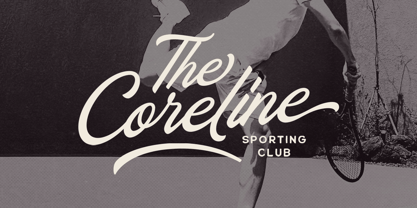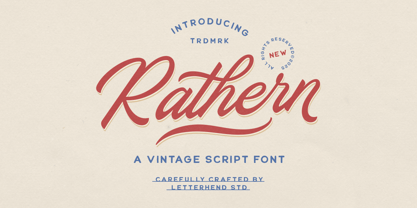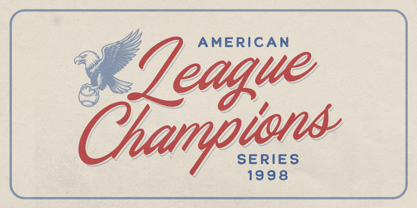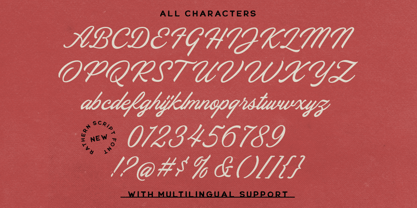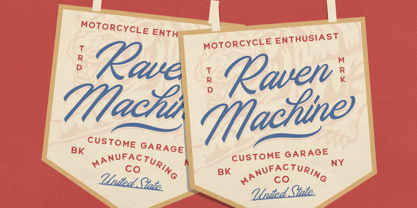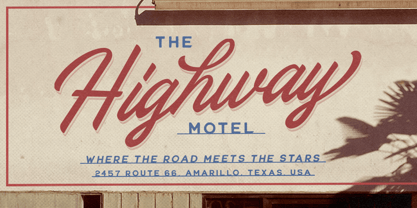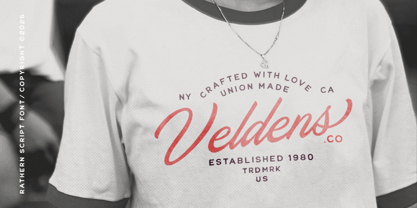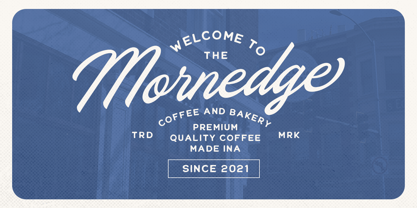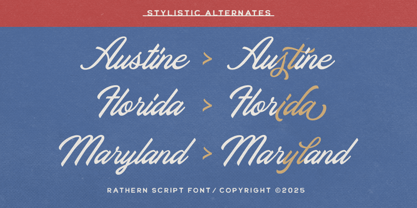
Rathern
by Letterhend
The Rathern Font Family was designed by Hendry Juanda and published by Letterhend. Rathern contains 1 styles. More about this family
Rathern is a vintage script font that beautifully blends bold curves with elegant flow, evoking the charm of hand-painted lettering from the golden era of sign painting. Its smooth strokes and subtle retro detailing make it ideal for logos, packaging, posters, and branding that aim to capture a nostalgic yet refined look. With a confident and stylish presence, Rathern delivers a timeless vibe that feels both classic and full of character. Features : Uppercase & lowercase Numbers and punctuation Alternates & Ligatures Multilingual Support PUA encoded
Designers: Hendry Juanda
Current Foundry: Letterhend